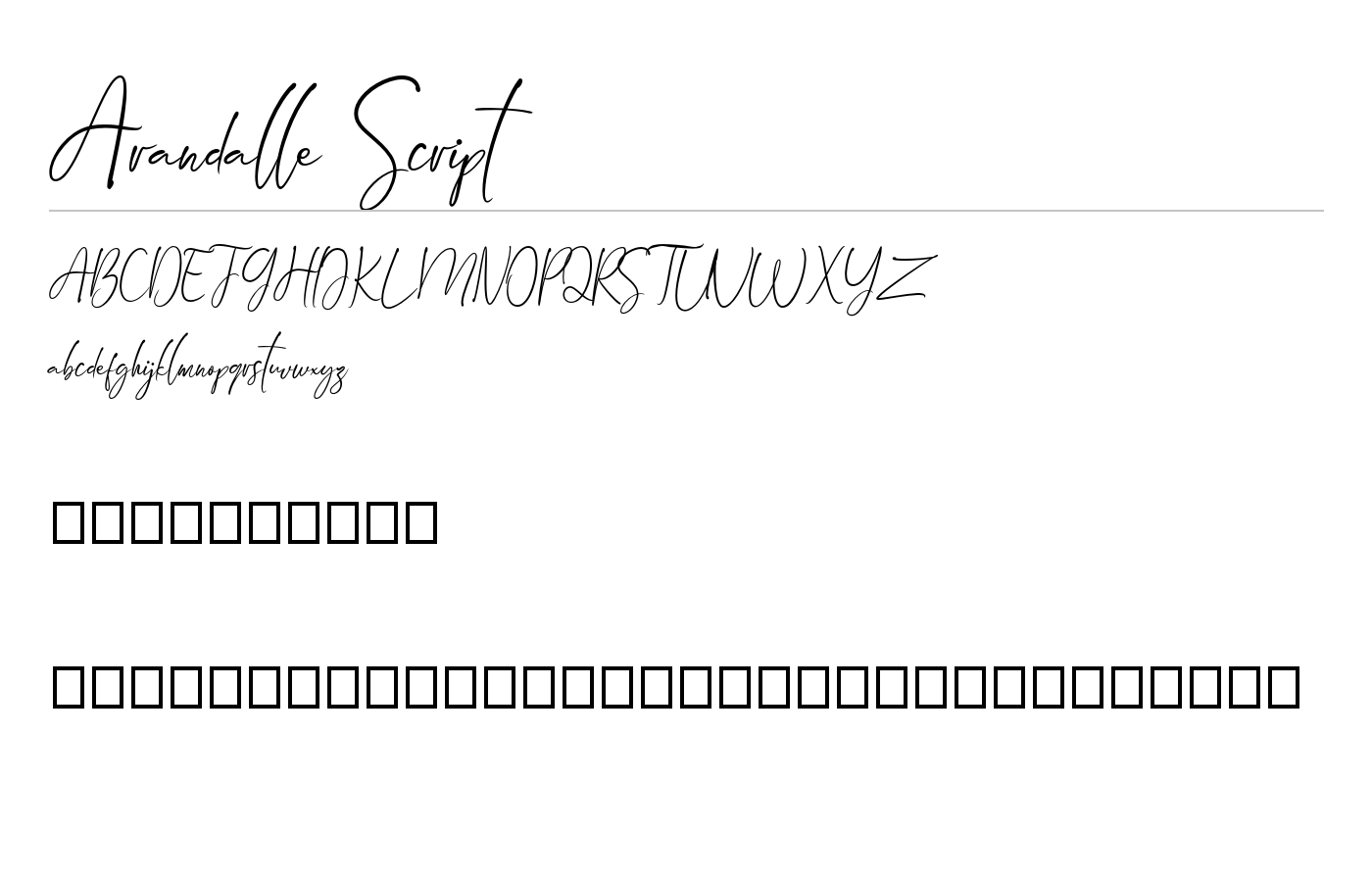
Arandalle Script is an elegant, thin script font with a hand-drawn, delicate feel. Its tall, flowing letterforms with graceful curves and fine strokes evoke a personal and sophisticated charm, making it ideal for wedding invitations, branding, and stylish editorial designs. This font works best when used in larger sizes where its fine details and airy rhythm can truly shine.
Arandalle Script Font
About Arandalle Script Font